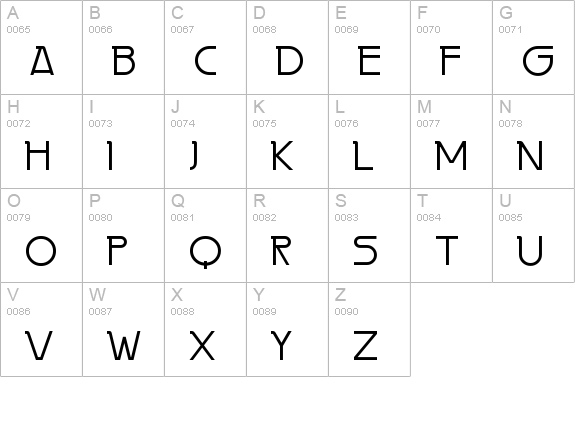
Persia Normal Font Details
Persia Normal is the standard, neutral variant in the Persia typeface family \xE2\x80\x94 well suited to general body text, paragraphs, and standard typographic work.
Introducing Persia Normal, a captivating and versatile font that effortlessly combines elegance with modernity. This typeface exudes a sense of sophistication and refinement, making it perfect for a wide range of creative projects. Whether you're designing a logo, crafting a brochure, or creating eye-catching social media graphics, Persia Normal will elevate your designs to new heights. With its clean lines and balanced proportions, Persia Normal offers a timeless appeal that seamlessly blends with any aesthetic. Its crisp and legible characters ensure optimal readability, making it an ideal choice for both print and digital media. From headline text to body copy, this font adapts effortlessly to various sizes and layouts, ensuring a consistently polished and professional look. But what truly sets Persia Normal apart is that it is freely available to download at FontsMarket.com. Yes, you read that right – this stunning font can be yours without any cost. Accessible to both professional designers and enthusiasts alike, Persia Normal offers the opportunity to enhance your creative projects without breaking the bank. So why wait? Unleash your creativity and elevate your designs with Persia Normal. Download it today at FontsMarket.com and experience the seamless fusion of elegance and modernity that this remarkable font has to offer.